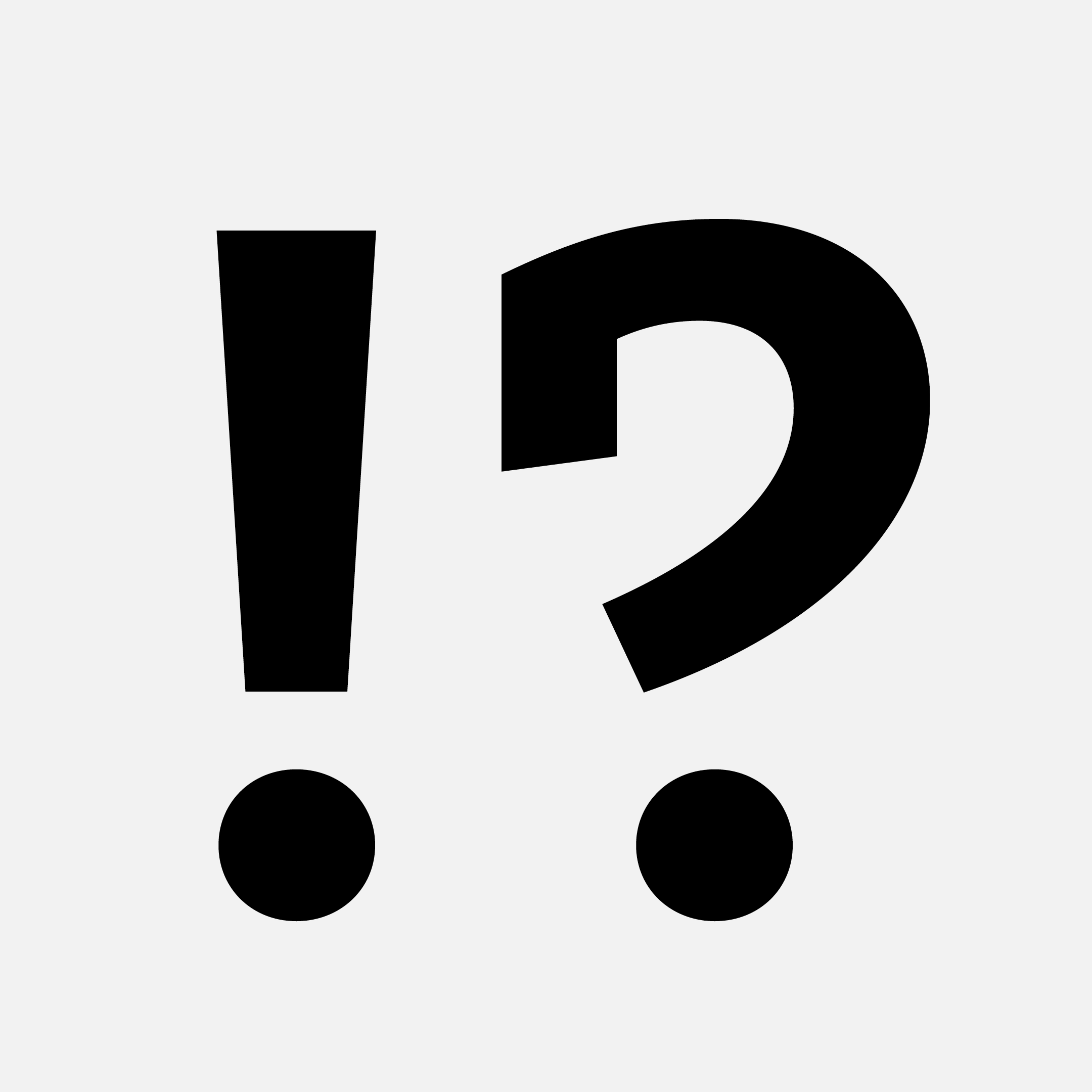
Tabac Slab
At the beginning of the nineteenth century, new type styles were created for bold display and advertising typography. In Europe, they were called Egyptians, aptly reflecting the period’s fashionable fascination with all things Egyptian. Over a relatively short period of development, slab-serif typefaces underwent a turbulent evolution: from poster types cut into large wooden blocks, maximally condensed, heavy, often with reverse contrast or decorative features as known from circus posters, through the strictly geometric forms popular in the first half of the twentieth century, to cultivated shapes with humanist proportions and smooth transitions into flat serifs, approaching conventional book typefaces and thus suitable for magazine typography as well.
At the notional end of this development stands Tabac Slab, created through the combination of various opposing influences, resulting in a universal linear serif typeface. The combination of assertive slab serifs with the subtlety of calligraphic details in the character construction or in the terminals of certain strokes creates an original concept in which influences from both editorial and advertising design intermingle. The serifs support readability in long texts, while the subtle drawing details fully emerge in sizes above twenty-four typographic points.
Tabac Slab works excellently in combination with any other typeface from the superfamily, thus expanding the almost infinite universe of the Tabac type system.